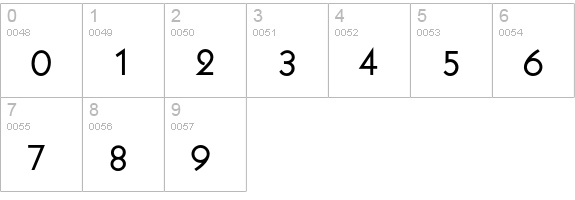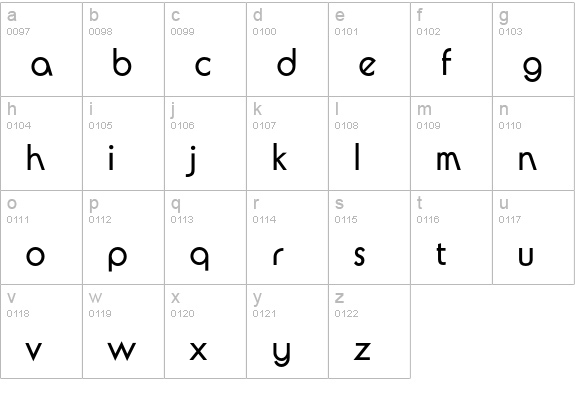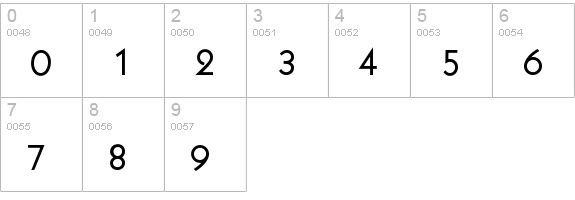
Avalon-Medium is a balanced, medium-weight variant in the Avalon typeface family \xE2\x80\x94 well suited to sub-headlines, navigation, and balanced editorial work.
Avalon-Medium font is a versatile and elegant typeface that exudes sophistication and style. Its clean lines and balanced proportions make it perfect for a wide range of design projects, from branding to editorial layouts. The medium weight provides a harmonious balance between readability and visual impact, making it suitable for both headlines and body text. The best part? Avalon-Medium font is available for free download at FontsMarket.com, allowing you to access this high-quality typeface without breaking the bank. With its timeless appeal and modern aesthetic, Avalon-Medium font is sure to elevate your design projects and help you make a lasting impression. Download it today and add a touch of class to your next creative endeavor.